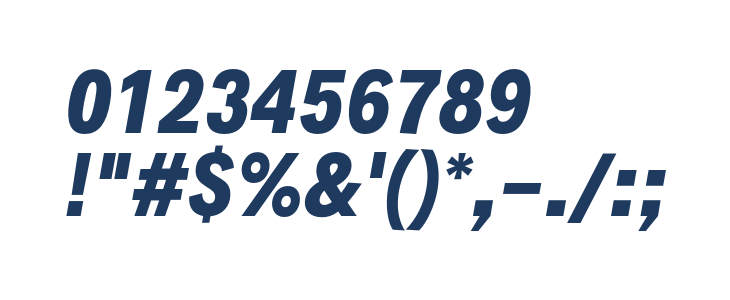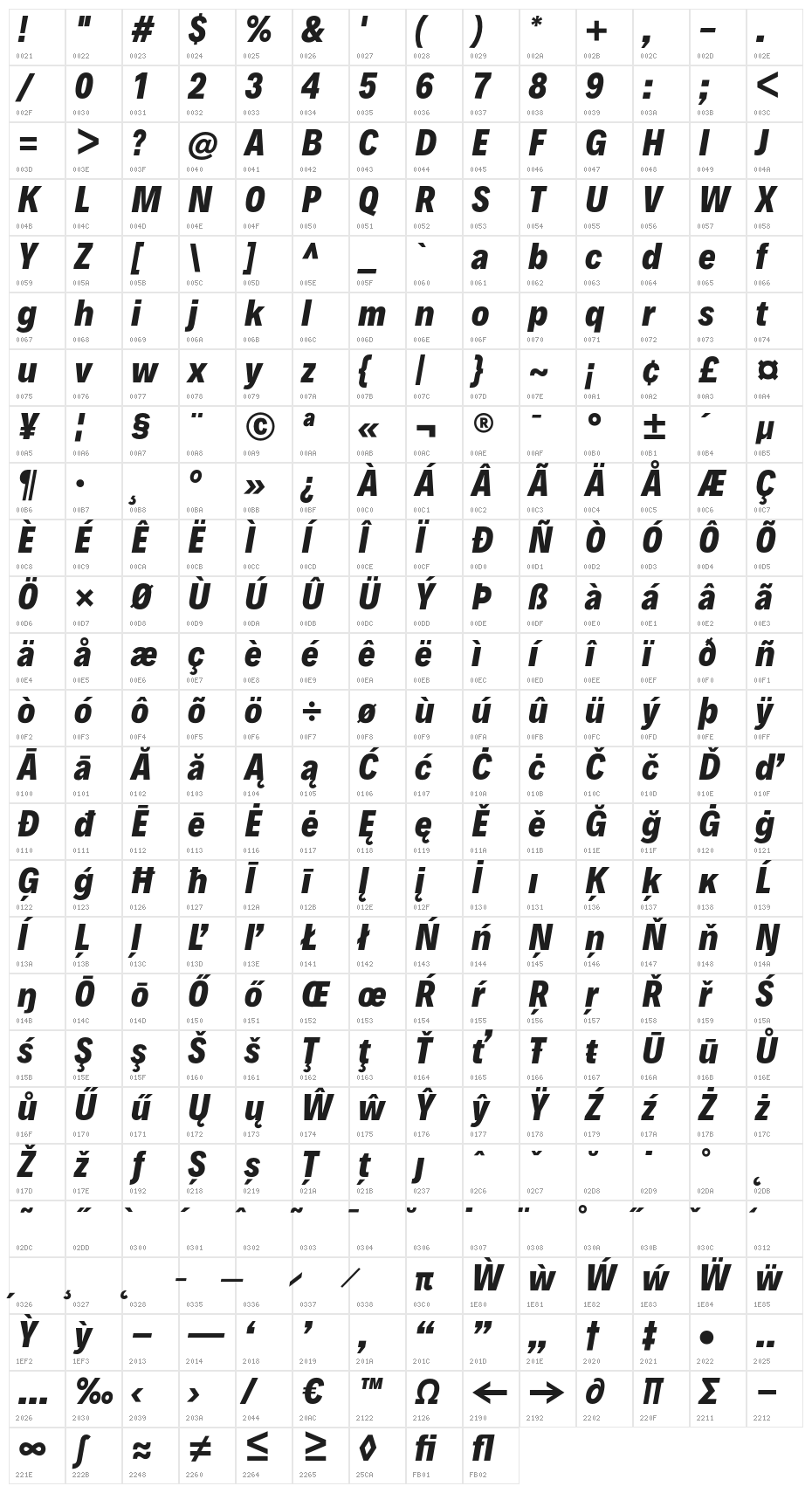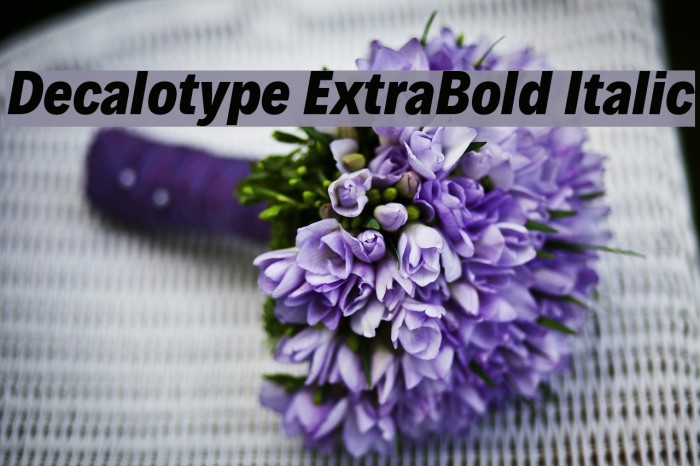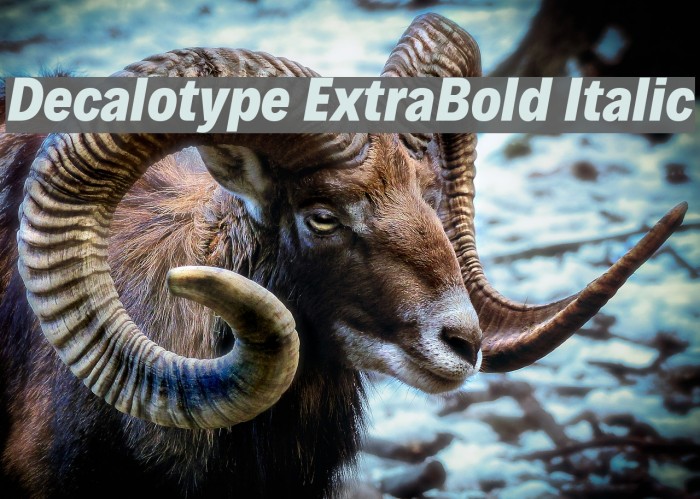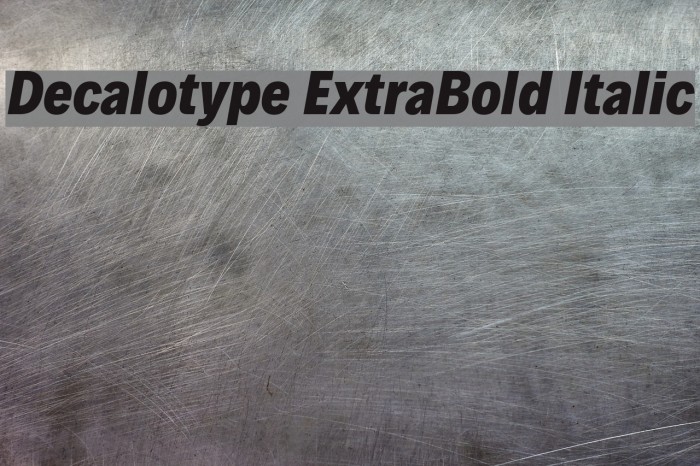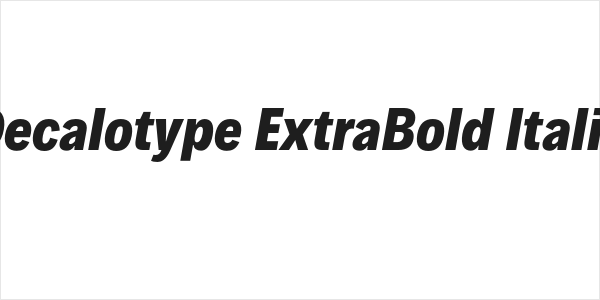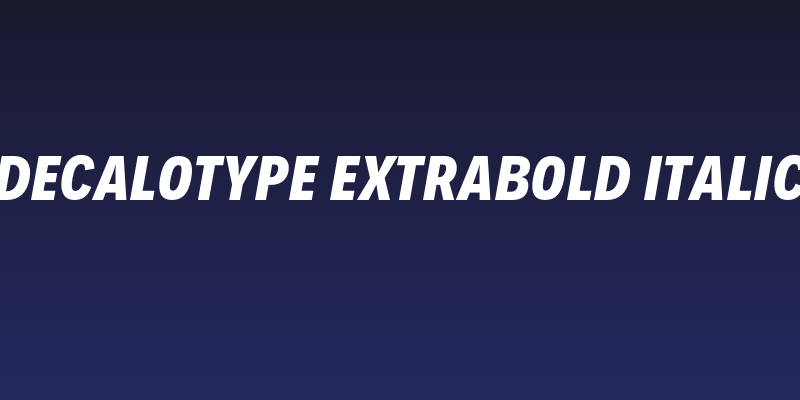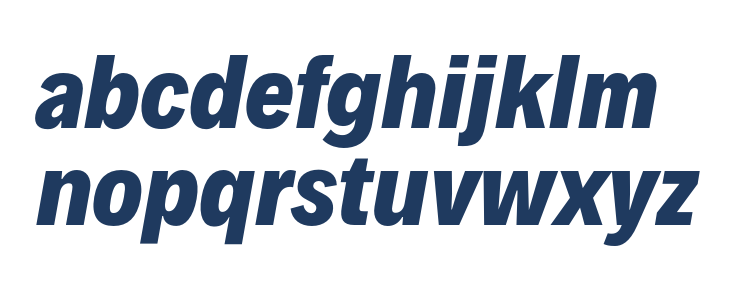
Decalotype ExtraBold Italic Font
Decalotype ExtraBold Italic Description
This font exhibits a bold and dynamic presence with its extra-bold weight and italic style. The characters are designed with a strong emphasis on thickness, providing a robust and impactful appearance. The italic slant adds a sense of motion and energy, making it suitable for attention-grabbing headlines or statements. The uppercase and lowercase letters maintain a consistent style, ensuring readability while conveying a sense of urgency and importance. The numerals and special characters are crafted to match the boldness of the alphabet, offering a cohesive look across all text elements.
Proposed ProjectsIdeal for branding, advertising, posters, and any design requiring a strong visual impact.